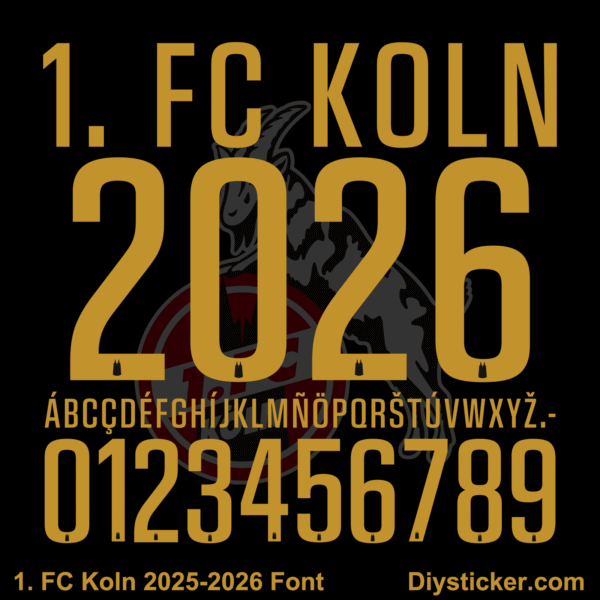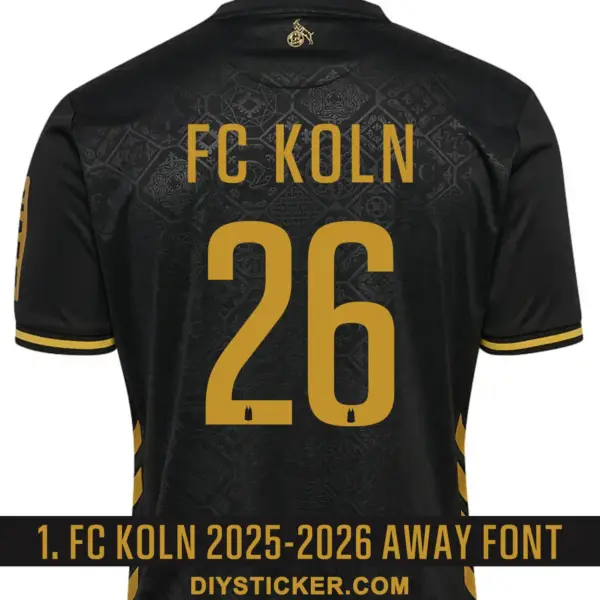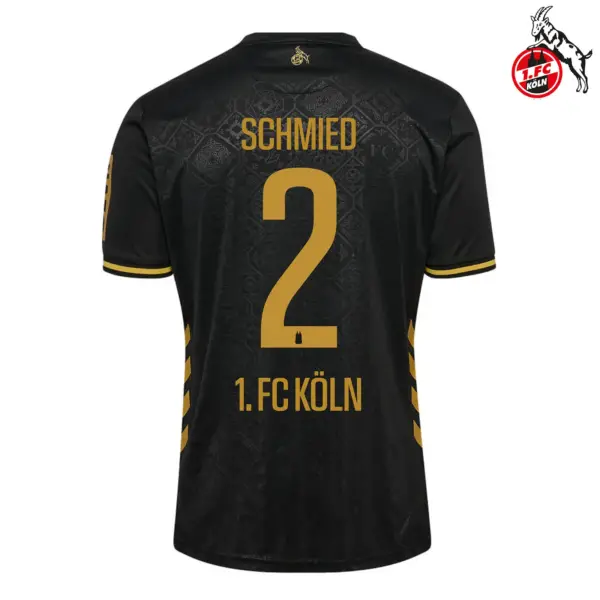
1. FC Koln 2025-2026 Away Font & Numbers Vector Kit: Premium German Football Customization
Upgrade your custom print production with the high-performance 1. FC Koln 2025-2026 away font and complete numbers set. Designed to perfectly replicate the striking look worn during away matches and cup tournaments, this digital toolkit offers unrivaled geometric precision. Whether you are creating an authentic name-set replica for a dedicated fan or preparing retail-ready custom apparel, our vector files ensure factory-fresh alignment. Discover more iconic European club typography layouts by exploring our curated repository.
Aesthetic Design Breakdown & Typography Engineering
The 1. FC Koln 2025-2026 away font showcases a highly sophisticated, condensed architectural geometry that brings a commanding presence to the pitch:
Iconic Cologne Cathedral Baseline Cutout: Nestled precisely within the bottom center base of every single digit is a custom, sharp cutout representing the famous twin spires of the Cologne Cathedral (Kölner Dom). This clean vector icon grounds the numbers in local heritage and ensures ultimate replica authenticity.
Tall, Compressed Athletic Character Map: The alphabet features a narrow, geometric sans-serif construction with smooth exterior rounded arcs and clean interior square walls. This space-saving engineering allows longer German player names to stretch beautifully across the shoulders without losing line width.
Sophisticated Matte Gold Palette: Rendered in a majestic matte gold tone, this font provides an exceptional visual contrast when pressed onto the club’s dark, premium embossed black away jersey.